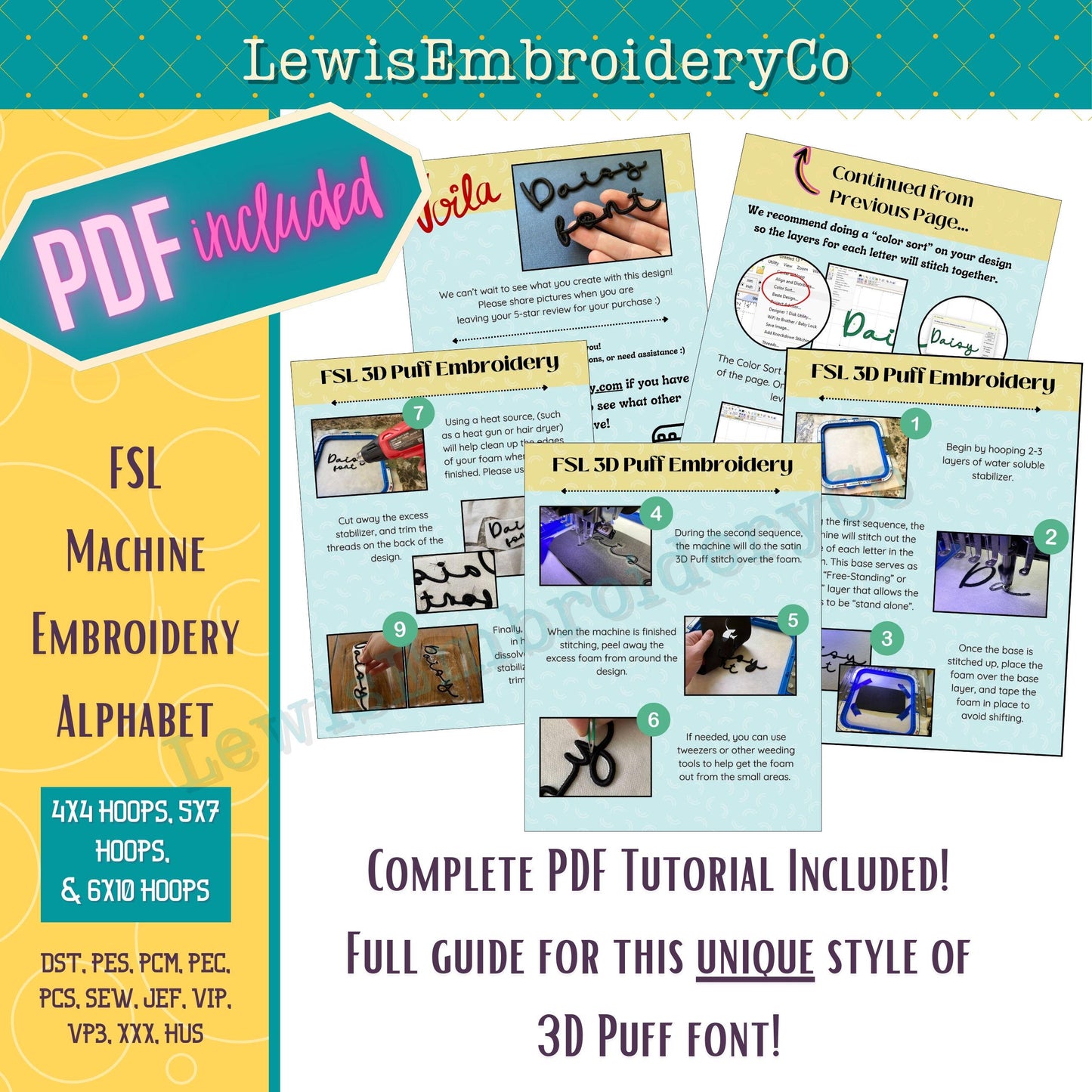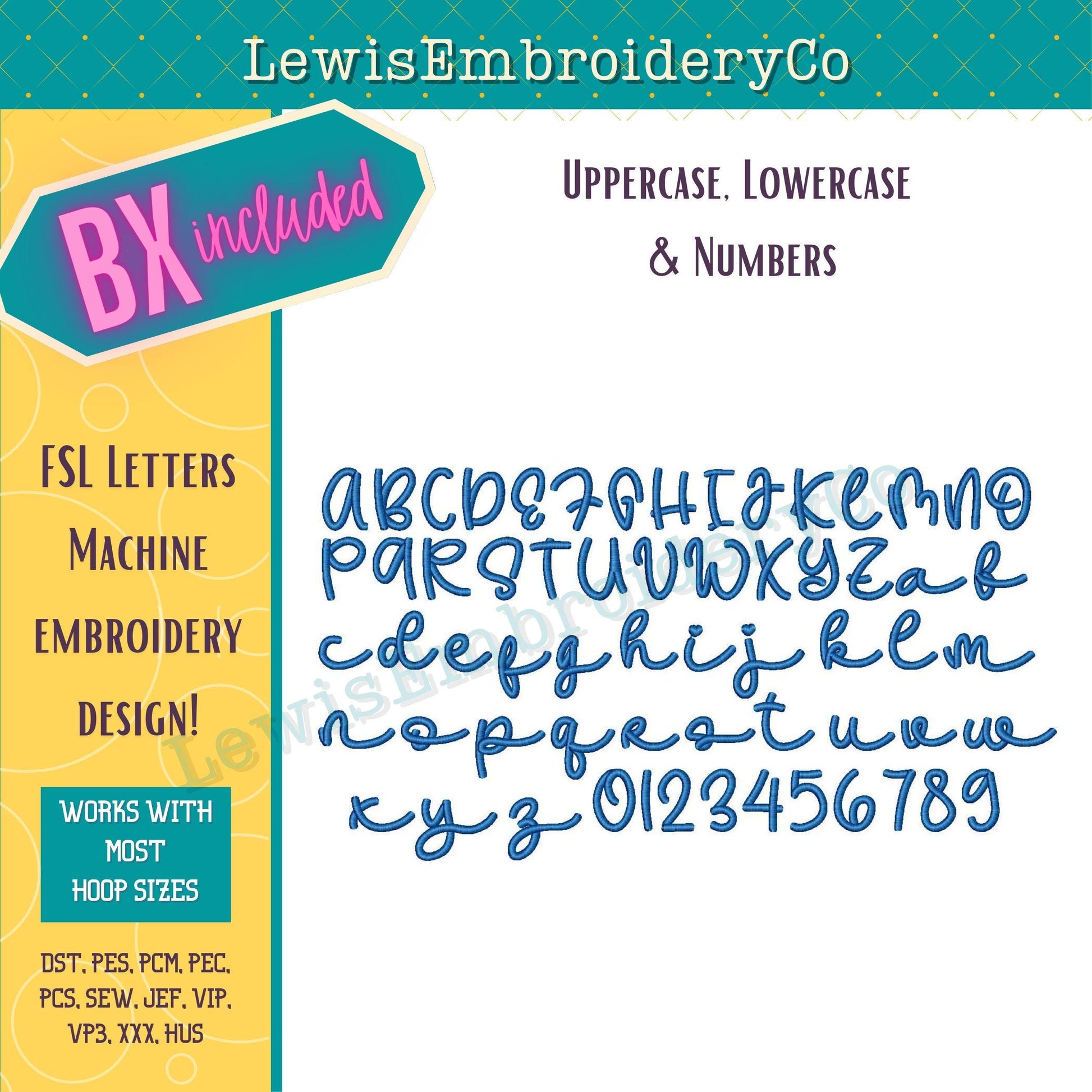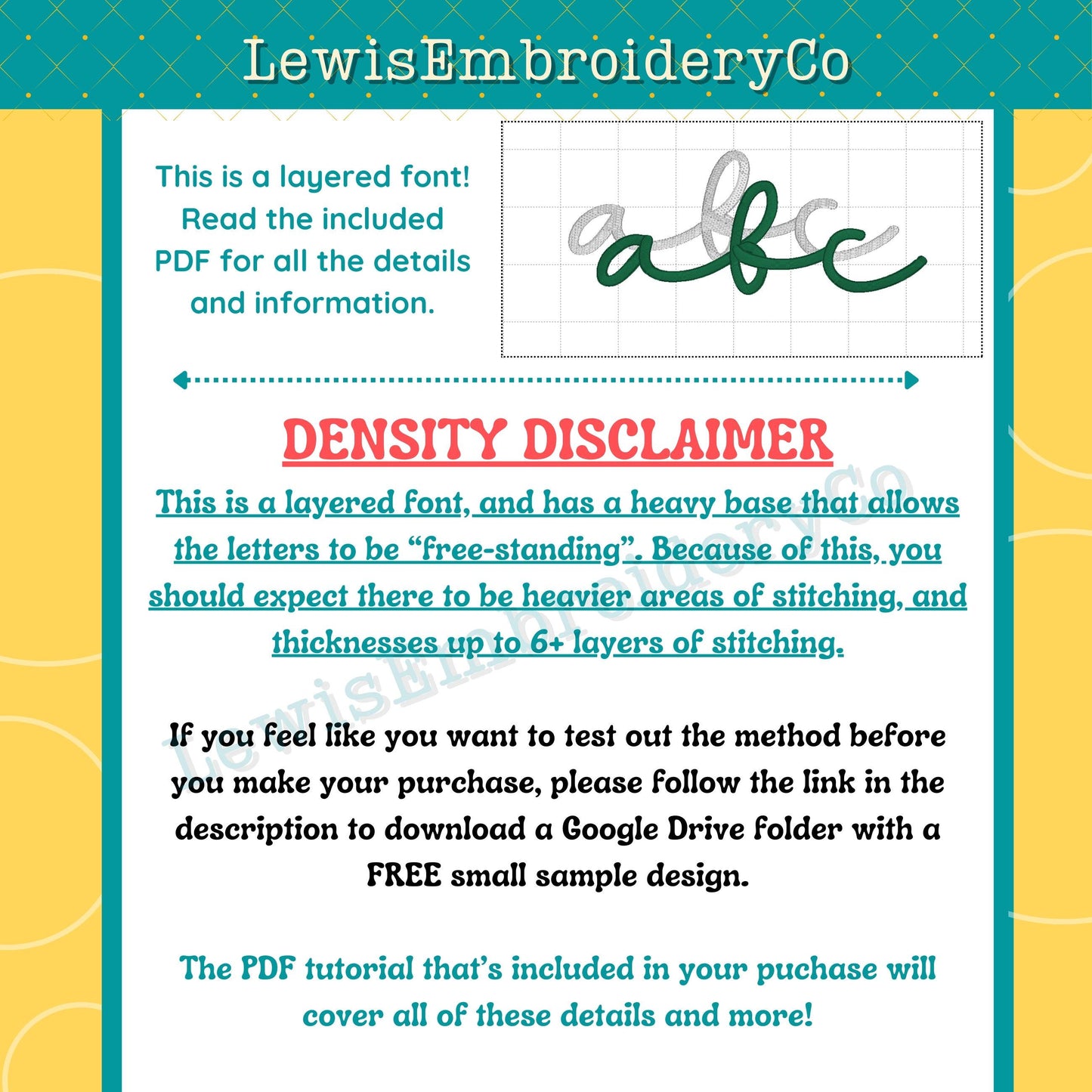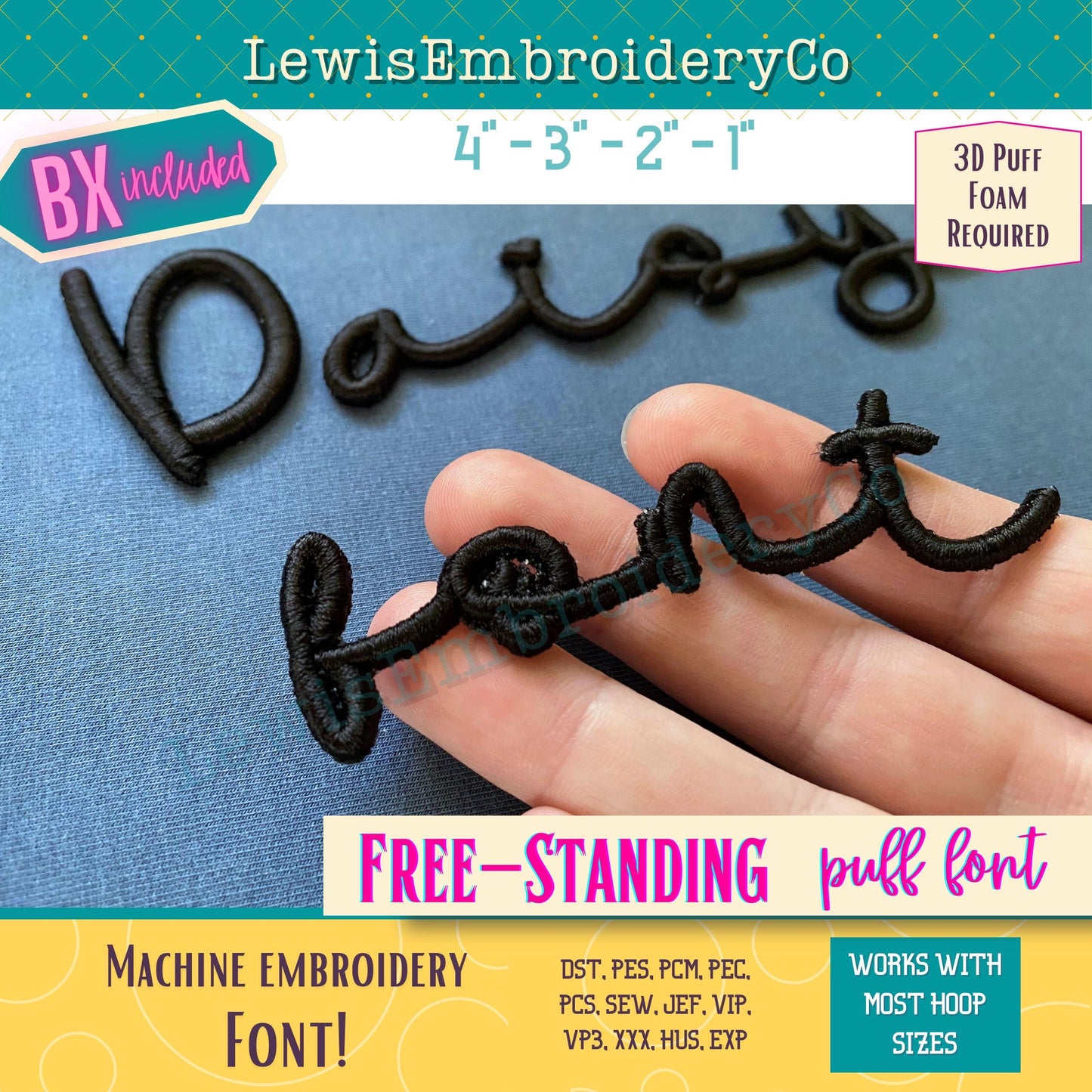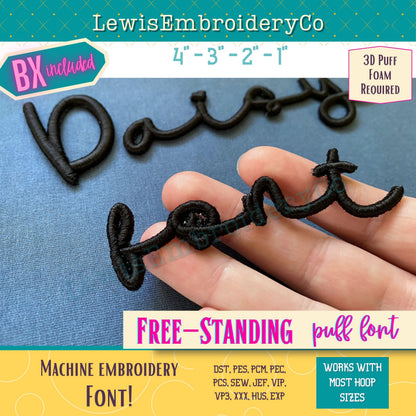
Free-Standing 3D Puff, Machine Embroidery Font - With BX - (PDF Tutorial Included)
Free Standing 3D Puff Embroidery Font - FSL Alphabet - Stand Alone Puff Letters - Name Patch - Puff Foam Embroidery Font - Custom Word Patch
Use this font to create your own custom word and name patches!!